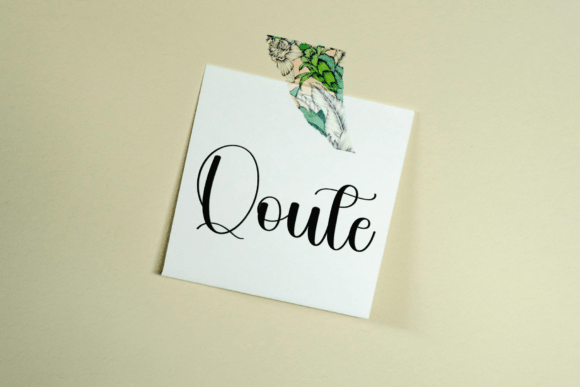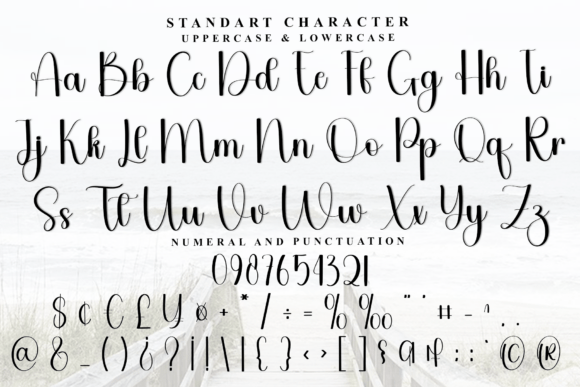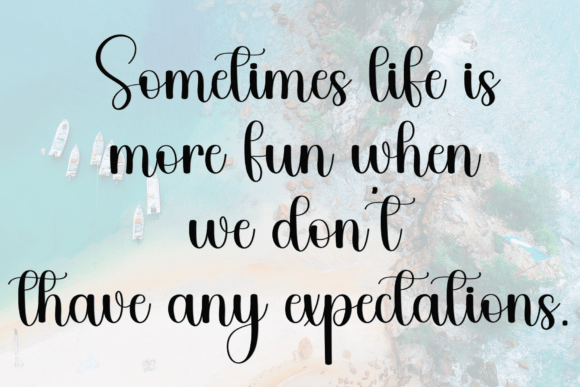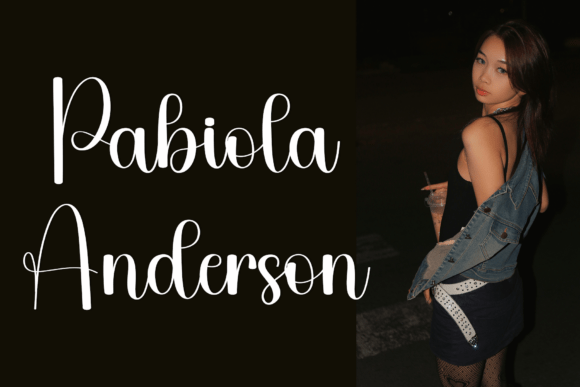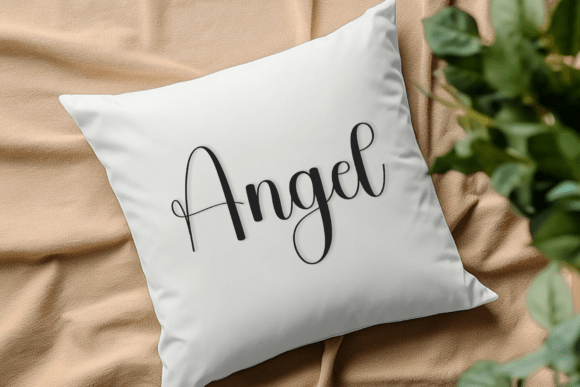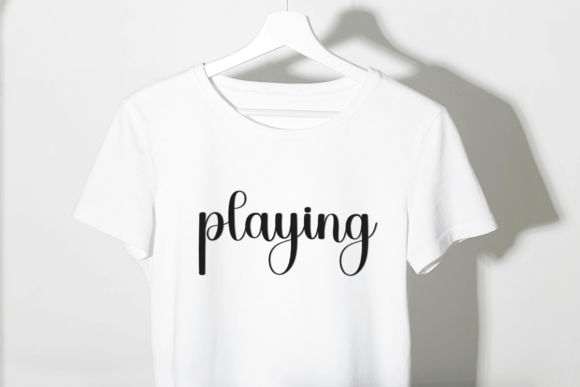
Introducing Edition Alphabet Font: Elevate Your Design with Elegance and Charm
In the world of typography, few fonts manage to strike a balance between modern sophistication and timeless elegance. Edition Alphabet Font is one such refined handwritten font that seamlessly blends these qualities, making it an ideal choice for designers and crafters looking to add a touch of luxury to their projects. With its tall letterforms, fluid strokes, and graceful swashes, Edition Alphabet Font is perfect for a wide range of applications, from branding and logos to quotes and wedding stationery.
The Characteristics of Edition Alphabet Font
So, what sets Edition Alphabet Font apart from other fonts in its category? Here are a few key characteristics that make it a standout:
- Tall Letterforms: Edition Alphabet Font features tall, slender letterforms that exude elegance and sophistication. Whether you’re using it for a logo, title, or heading, the font’s vertical proportions make it perfect for grabbing attention and conveying a sense of refinement.
- Fluid Strokes: The font’s fluid strokes add a touch of warmth and personality to the letterforms, making them feel more approachable and human. This characteristic also helps to create a sense of movement and flow, making the font ideal for use in quotes, phrases, and other text-based designs.
- Graceful Swashes: One of the most distinctive features of Edition Alphabet Font is its use of graceful swashes. These elegant flourishes add a touch of sophistication to the font, making it perfect for use in high-end branding, wedding stationery, and other luxury applications.
Uses for Edition Alphabet Font
So, what can you use Edition Alphabet Font for? The possibilities are endless, but here are a few ideas to get you started:
- Branding: Use Edition Alphabet Font to create a luxurious and sophisticated brand identity that sets you apart from the competition. The font’s elegant letterforms and swashes make it perfect for logos, business cards, and other marketing materials.
- Wedding Stationery: Add a touch of romance and elegance to your wedding stationery with Edition Alphabet Font. The font’s fluid strokes and swashes make it perfect for use in invitations, save-the-dates, and other wedding-related materials.
- Quotes and Typography: Use Edition Alphabet Font to create beautiful typographic quotes and posters that showcase your favorite phrases and sayings. The font’s elegant letterforms and swashes make it perfect for use in inspirational quotes, motivational posters, and other text-based designs.
- Logos and Icons: Edition Alphabet Font is also perfect for use in logos and icons. The font’s simple, yet elegant letterforms make it easy to recognize and remember, making it perfect for use in a wide range of applications.
Why Choose Edition Alphabet Font?
So, why should you choose Edition Alphabet Font for your next design project? Here are a few reasons:
- Unique and Versatile: Edition Alphabet Font is a unique and versatile font that can be used in a wide range of applications. Whether you’re designing a logo, creating a wedding invitation, or crafting a typographic quote, the font’s elegant letterforms and swashes make it perfect for any project.
- Elegant and Sophisticated: The font’s elegant letterforms and swashes add a touch of sophistication to any design, making it perfect for high-end branding, luxury packaging, and other premium applications.
- Easy to Read: Despite its elegant and refined appearance, Edition Alphabet Font is easy to read and understand. This makes it perfect for use in body text, captions, and other applications where legibility is key.
In conclusion, Edition Alphabet Font is a refined handwritten font that blends elegance and charm. With its tall letterforms, fluid strokes, and graceful swashes, it’s perfect for a wide range of applications, from branding and logos to quotes and wedding stationery. Whether you’re a designer, crafter, or DIY enthusiast, Edition Alphabet Font is a great choice for anyone looking to add a touch of sophistication and luxury to their designs.